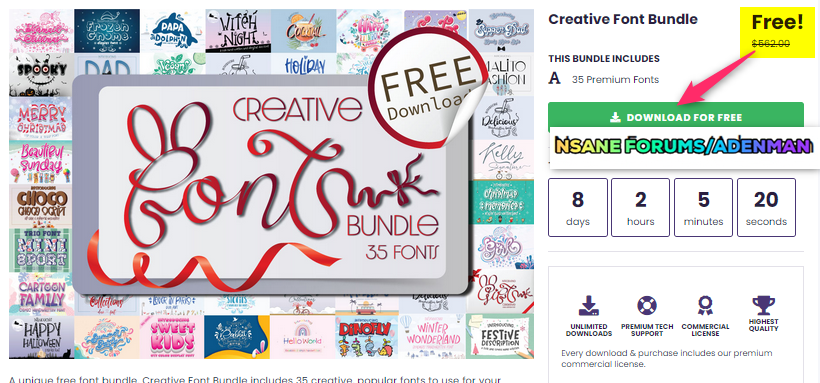
Adenman Posted April 22, 2022 Share Posted April 22, 2022 Creative Font Bundle – Free Commercial License – 35 Premium Fonts by Nobu Collections – for Windows & Mac OS X Create beautiful projects with these high-quality, professional fonts. Choose from script, handwritten, color fonts and much more! Get Creative Font Bundle includes a lifetime commercial license for free! Do you love to craft? Do you need new fonts for your projects? Well, these 35 creative and popular fonts are perfect for any crafter! You will receive a wide variety of styles and font types; script, handwritten, color fonts and much more. These fonts are high-quality so they can be used in any project. There is also an extensive list of the different typefaces included with this Creative Font Bundle: This bundle values $550, get it now for FREE! A lifetime commercial license is included. Giveaway link : https://www.creativefabrica.com/product/creative-font-bundle-3/ https://www.creativefabrica.com/product/creative-font-bundle-3/ref/3827/ https://thesoftware.shop/creative-font-bundle-discount-sale/ Link to comment Share on other sites More sharing options...